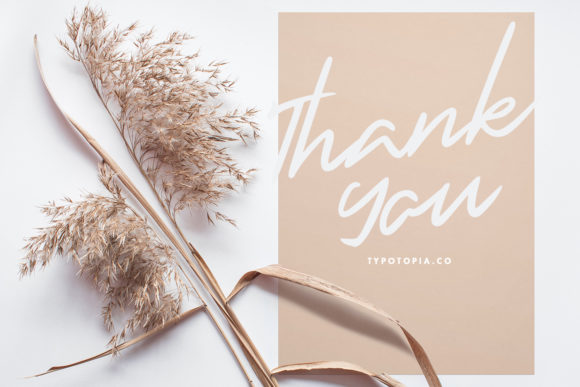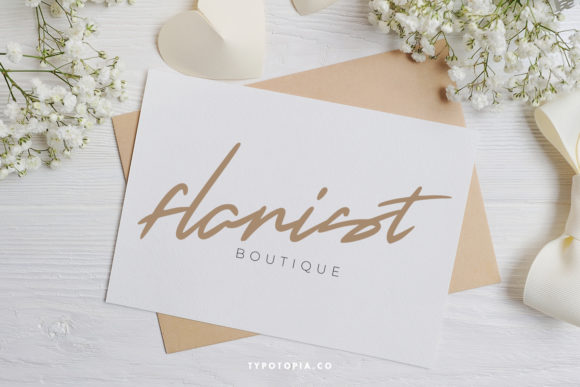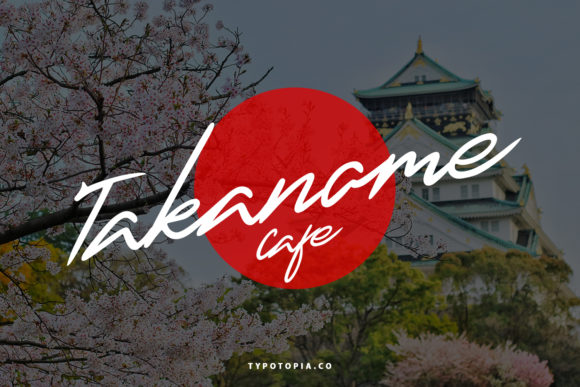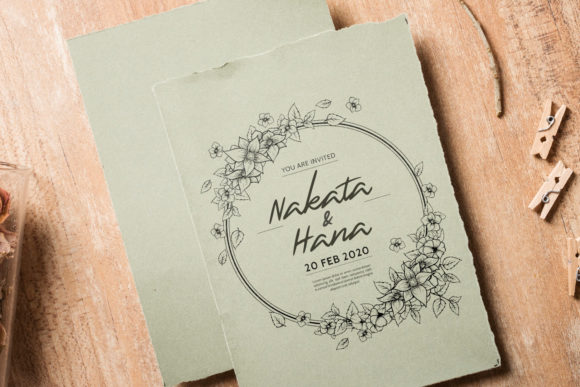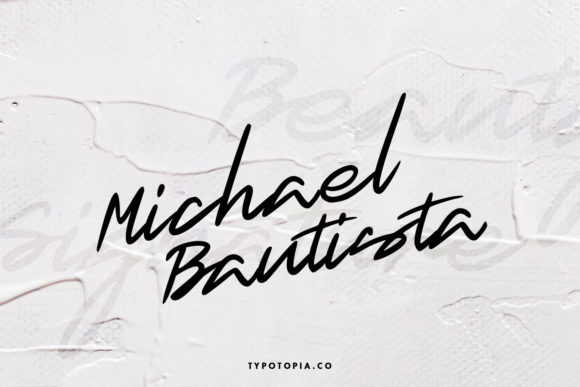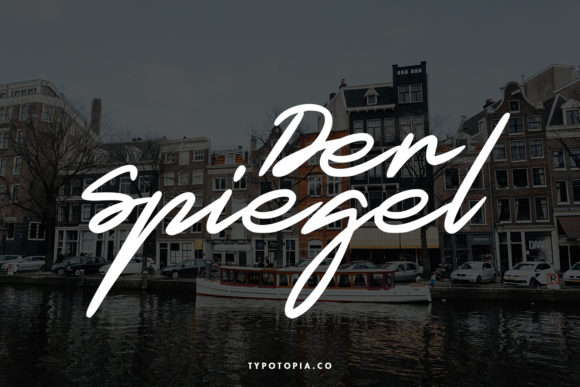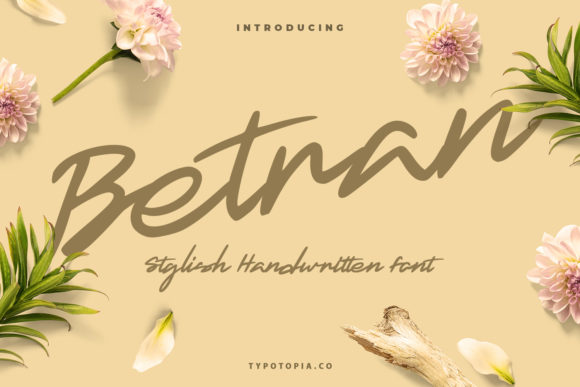
Introducing Betran Font: The Ultimate Handwritten Font for Creative Projects
Are you a designer or crafter looking for a unique and versatile font to elevate your creative projects? Look no further than Betran Font! This thick lettered and flowing handwritten font is perfect for creating stunning wedding invitations, beautiful stationery art, eye-catching social media posts, and much more.
What Makes Betran Font So Special?
Betran Font is a one-of-a-kind handwritten font that boasts an incredibly versatile style. Its thick letters and flowing curves make it perfect for creating beautiful and elegant designs that are sure to capture the attention of your audience. Whether you’re designing for a wedding, a business, or a personal project, Betran Font is the perfect choice.
Uses for Betran Font
Betran Font is incredibly versatile and can be used for a wide range of creative projects, including:
- Wedding Invitations: Create stunning wedding invitations that set the tone for your special day. Betran Font’s elegant and flowing style is perfect for creating beautiful and romantic invitations that your guests will cherish.
- Stationery Art: Add a touch of elegance to your stationery with Betran Font. From greeting cards to letterheads, this font is perfect for creating beautiful and professional-looking stationery.
- Social Media Posts: Make your social media posts stand out with Betran Font. Its eye-catching style is perfect for creating engaging and shareable content that will capture the attention of your followers.
- Branding and Packaging: Use Betran Font to create a unique and recognizable brand identity. Its versatile style makes it perfect for use on packaging, labels, and other branding materials.
Benefits of Using Betran Font
Betran Font offers a range of benefits for designers and crafters, including:
- Unique and Versatile Style: Betran Font’s unique and versatile style makes it perfect for a wide range of creative projects.
- Elegant and Professional: Betran Font’s elegant and flowing style makes it perfect for creating professional-looking designs that are sure to impress.
- Easy to Read: Despite its thick letters, Betran Font is incredibly easy to read, making it perfect for use on a wide range of materials.
- High-Quality Design: Betran Font is designed to the highest standards, ensuring that your designs look professional and polished.
Tips for Using Betran Font
To get the most out of Betran Font, here are a few tips to keep in mind:
- Experiment with Different Sizes: Betran Font looks great in a wide range of sizes, so don’t be afraid to experiment to find the perfect size for your project.
- Pair with Other Fonts: Betran Font pairs perfectly with a wide range of other fonts, so don’t be afraid to get creative and try out different combinations.
- Use on a Variety of Materials: Betran Font is incredibly versatile, so don’t be afraid to use it on a wide range of materials, from wedding invitations to social media posts.
Betran Font is a unique and versatile handwritten font that is perfect for designers and crafters looking to elevate their creative projects. Its thick letters and flowing curves make it perfect for creating beautiful and elegant designs that are sure to capture the attention of your audience. With its wide range of uses and benefits, Betran Font is a must-have font for any designer or crafter looking to take their designs to the next level.